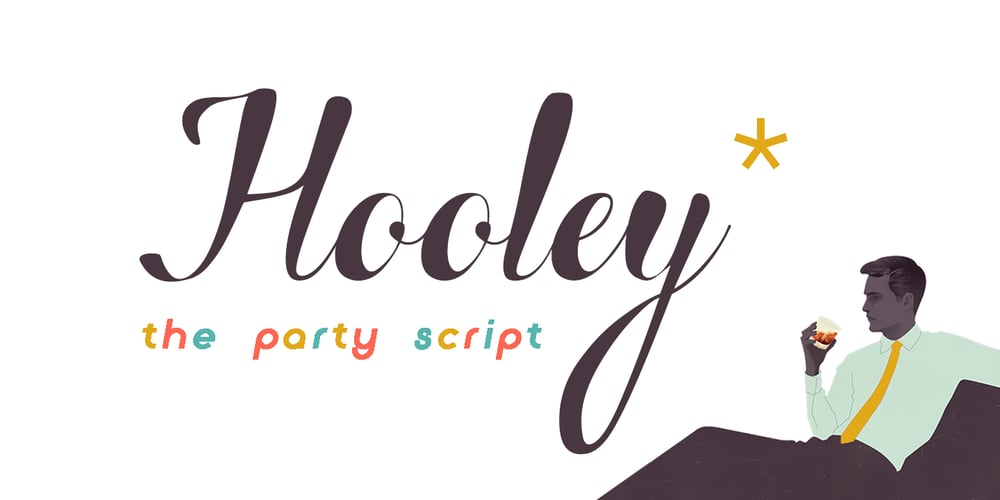
Hooley Font Family was designed by Alex Etewut and published by Etewut. Hooley contains 1 styles and family package options. Here is the party script ‘Hooley’. It’s created for decoration, advertisement, product design, signing cards and whatever you can imagine. The font is PUA encoded, that allows you to use special characters with glyphs panel. Hooley script has multi language support, alternative symbols, swashes and swooshes with charisma.